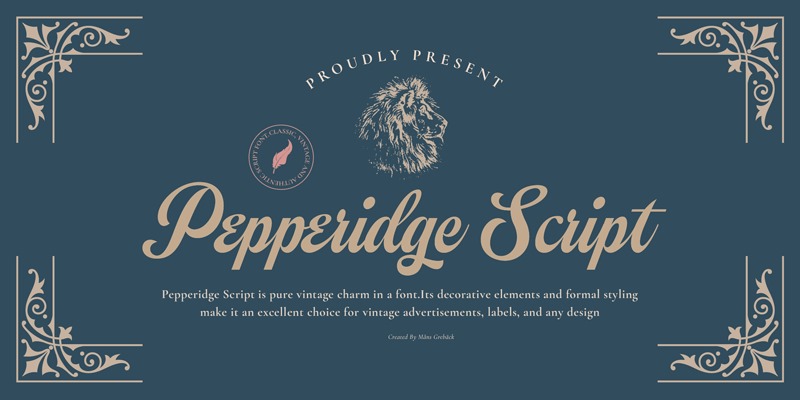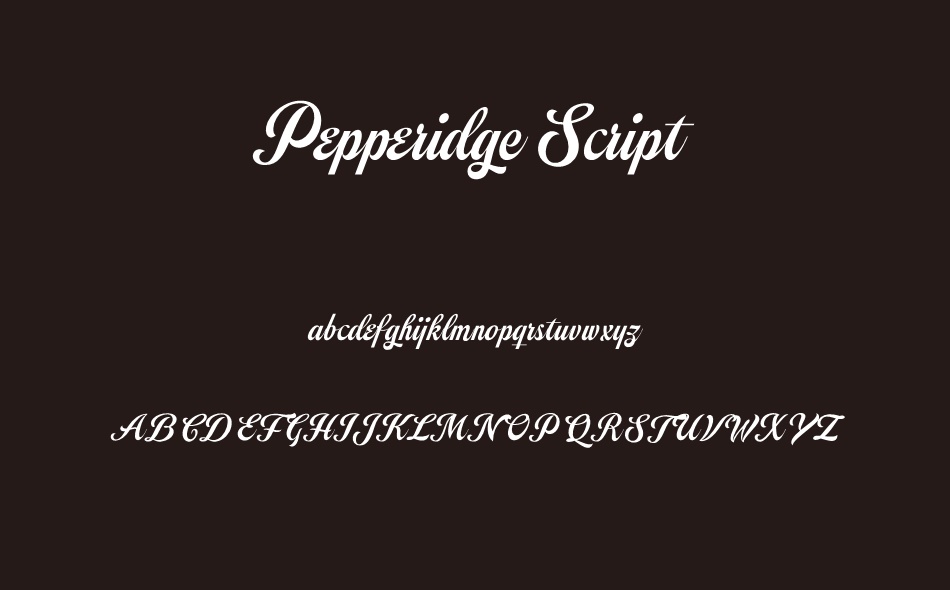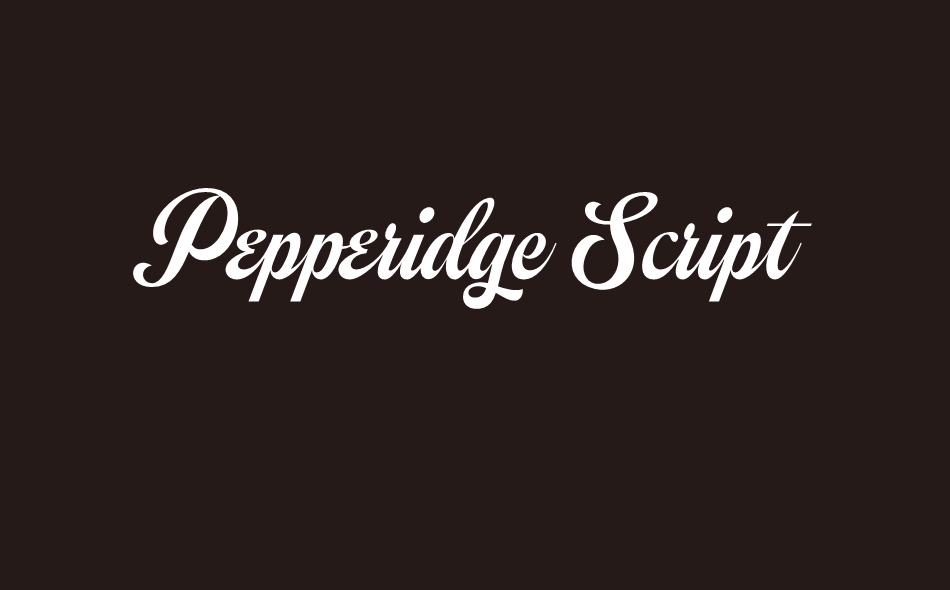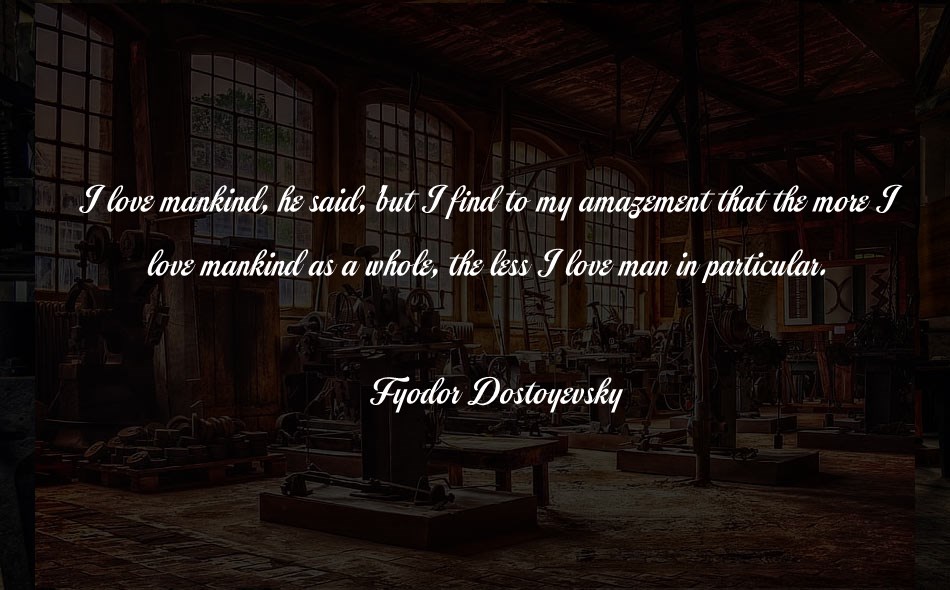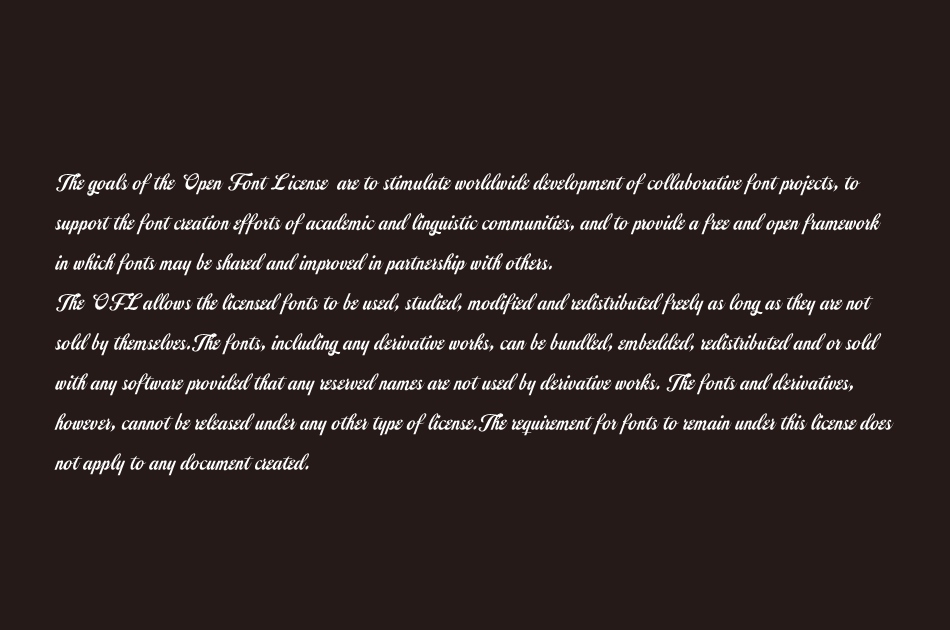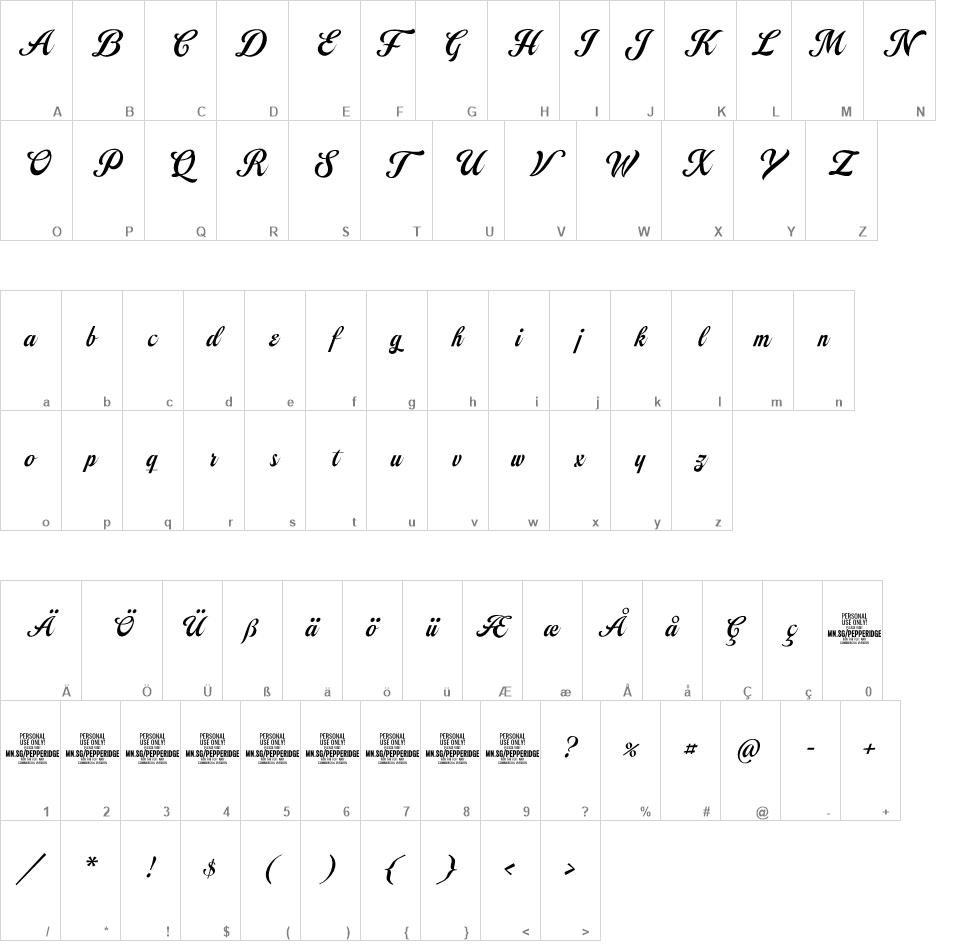
Pepperidge Script font
Pepperidge Script is a classical elegance script font. Designed with heavy calligraphic lines and intricate curves, Pepperidge Script suits formal applications and traditional logotypes.
Use underscore _ to make a swash.
Example: Deco_rative
Use multiple underscores to make different underlines.
Example: Candy__shop
Pepperidge Script is pure vintage charm in a font. Imagine sipping an old-fashioned cocktail in a speakeasy and hearing the laughter and chatter of the past. With each keystroke, this font adds a layer of history to your work.
Use underscore _ to make an underline.
Example: Food_Shop
Use multiple underscores to make differenr swashes.
Example: Swash__iness
Its decorative elements and formal styling make it an excellent choice for vintage advertisements, labels, and any design requiring a touch of the past.
Pepperidge Script is built with advanced OpenType functionality and has a guaranteed top-notch quality, containing stylistic and contextual alternates, ligatures, and more features; all to give you full control and customizability. It has extensive lingual support, covering all Latin-based languages, and includes all the characters and symbols you'll ever need.
Behind this exquisite creation is Mans Greback. Known for pushing the boundaries of type design, Greback has ventured into the intricate intricacies of aesthetic diversity with Pepperidge Script. His portfolio is a testament to his versatility and daring, turning simple alphabets into powerful visual narratives.